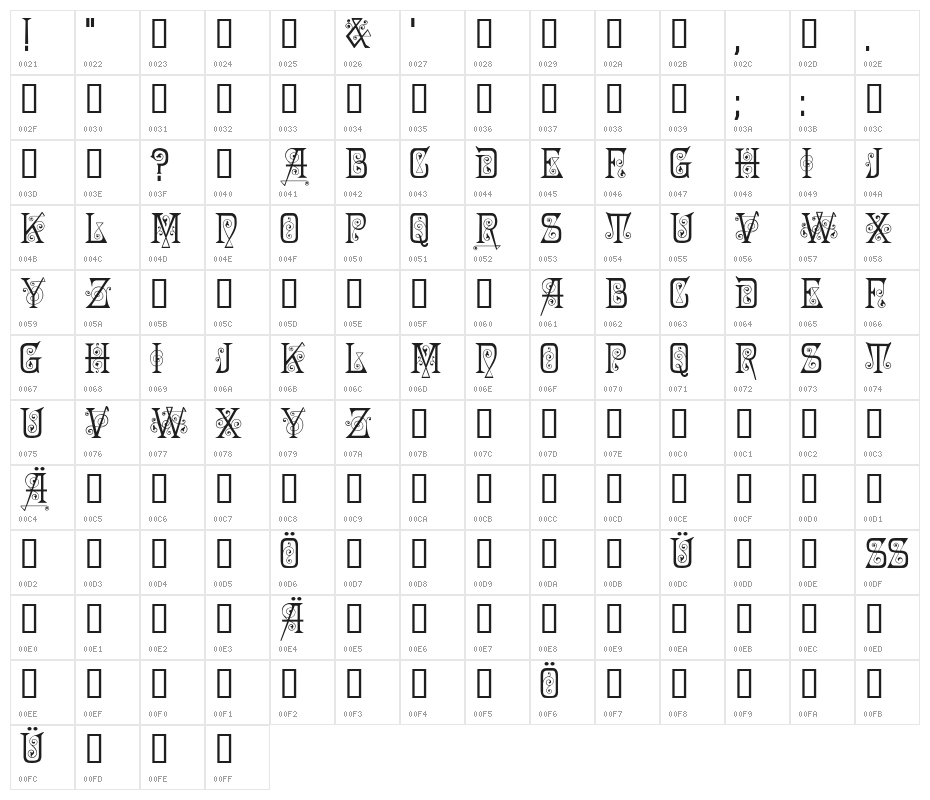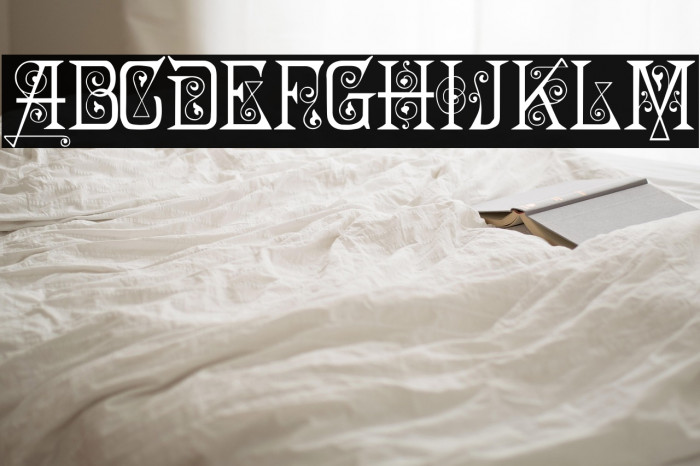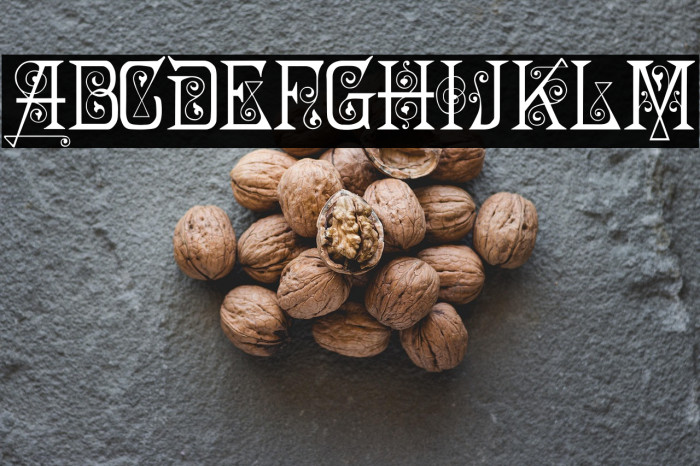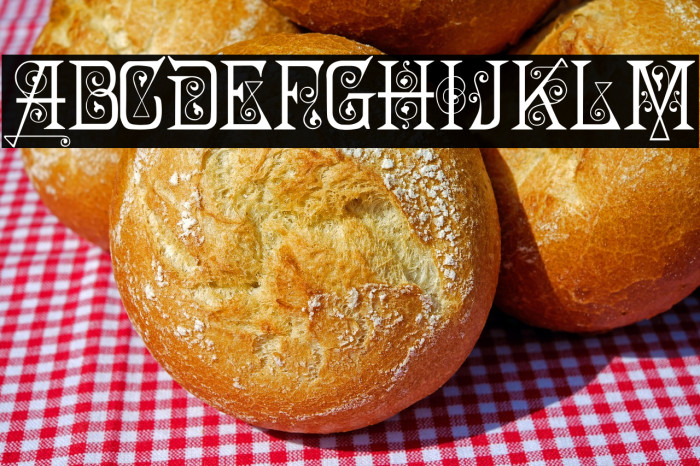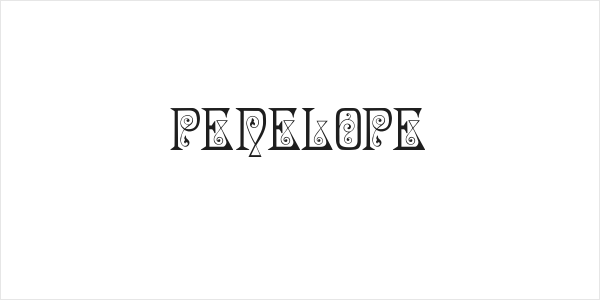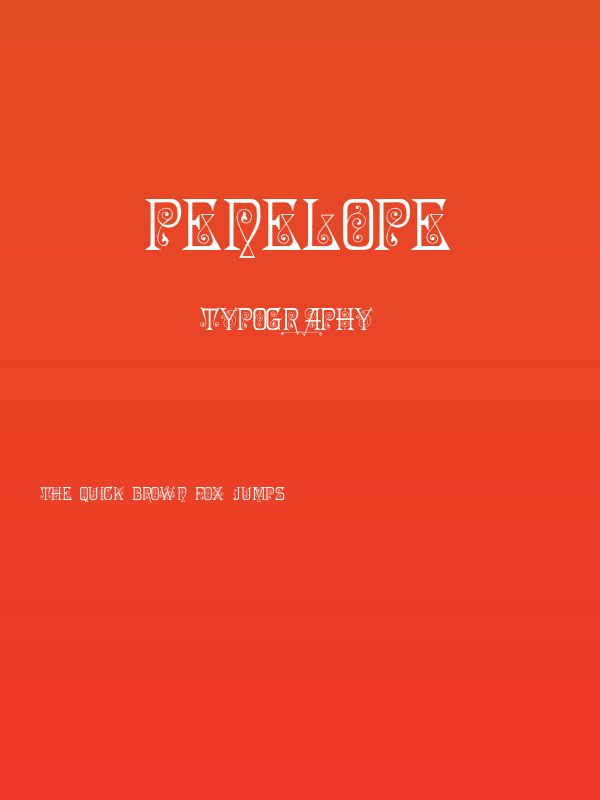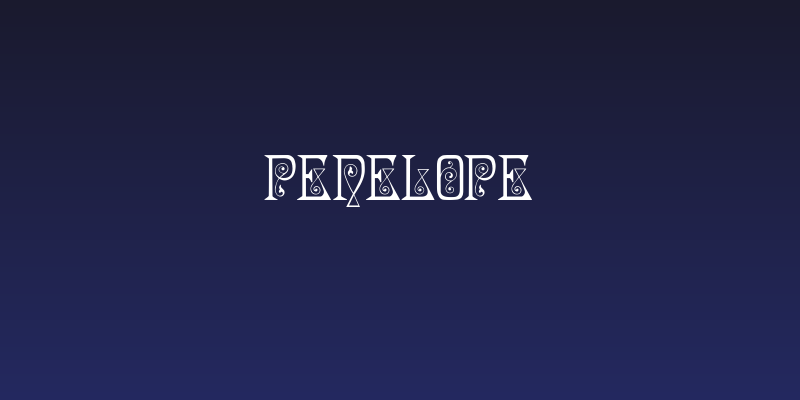
Penelope Font
Penelope Description
This font is a highly decorative and intricate typeface that features elaborate swirls and embellishments on each character. The uppercase letters are adorned with ornate curls and loops, giving them a whimsical and artistic appearance. The lowercase letters maintain the same decorative style, ensuring consistency throughout the typeface. The numbers and special characters are also designed with similar embellishments, making this font ideal for creative and artistic projects. The overall design is bold and eye-catching, making it suitable for use in headlines or titles where a dramatic effect is desired.
| Use Case | Headlines, Logos, Artistic projects |
| Proposed Projects | Ideal for artistic projects, invitations, posters, and any design requiring a dramatic and decorative touch. |